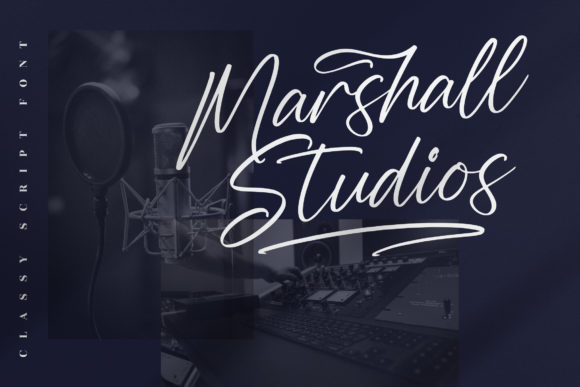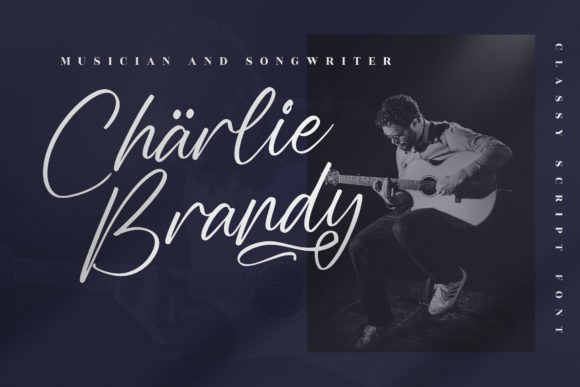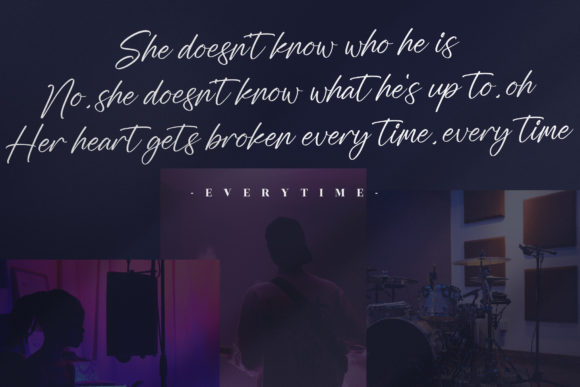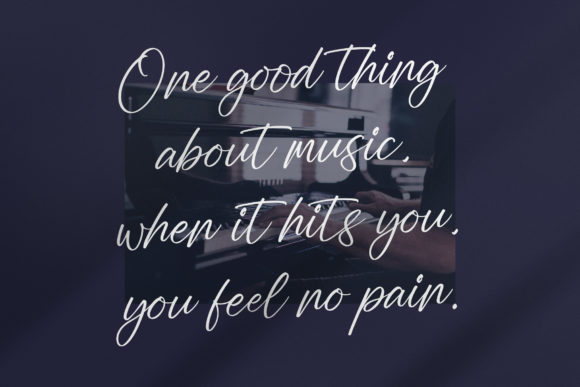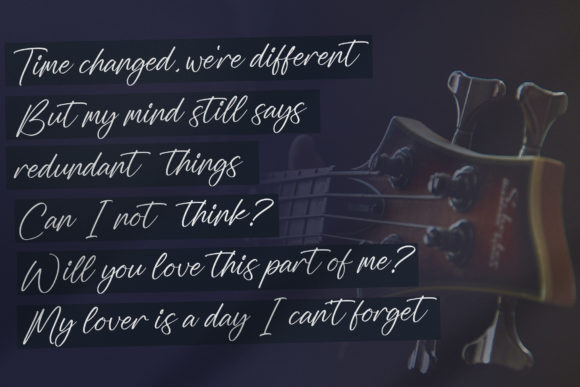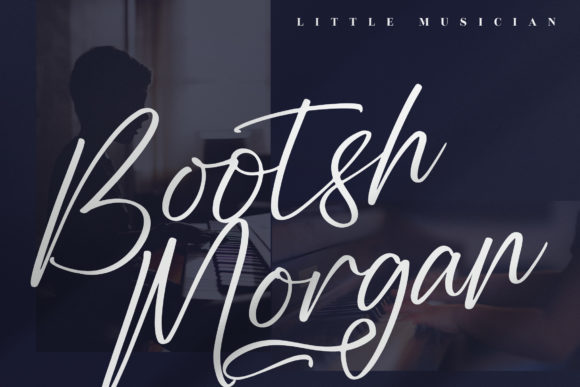
Introduction to Musika Study Font
Remember the moment when you stumbled upon the perfect font for your creative project? It’s like finding a hidden treasure that elevates your design to the next level. For designers, discovering the right font can be a game-changer, and that’s exactly what we’re about to explore – the beautiful world of Musika Study Font.
This lovely script font is more than just a pretty face; it’s a versatile design resource that can be used in a wide range of projects, from logos and branding to homeware designs and product packaging. With its relaxed and elegant feel, Musika Study Font is sure to add a touch of sophistication to any design. Plus, its PUA encoded feature makes it easy to access all the glyphs and swashes, giving you complete control over your creative vision.
Key Features of Musika Study Font
- High-quality, hand-drawn design perfect for creative projects and educational materials.
- Unique, playful style that adds a touch of personality to any design, from educational materials to marketing campaigns.
- Designed to be easily scalable, ensuring that your design remains legible and visually appealing at any size.
Honest Review: Musika Study Font
I recently had the chance to try out the Musika Study Font and I must say, I was quite impressed with its overall performance. As a designer, I’m always on the lookout for high quality design resources to elevate my creative projects, and this font did not disappoint.
One of the things that stood out to me was the clean and modern aesthetic of the font. It’s perfect for creating a professional and sophisticated look, especially when paired with a transparent background. The font is also incredibly versatile, making it suitable for a wide range of design applications.
- High quality design with a clean and modern aesthetic
- Perfect for creating a professional and sophisticated look
- Very versatile and suitable for a wide range of design applications
- The font may not be suitable for projects that require a more playful or casual tone
- The font can be quite heavy on the design, so it’s best to use it in moderation
Overall, I was very pleased with the Musika Study Font and would definitely recommend it to fellow designers looking for a high quality design resource. It’s a great addition to any design library and can help take your creative projects to the next level.
Introduction to Musika Study Font
Musika Study Font is a free design resource ideal for creative projects that require a high-quality, professional-looking font. With its transparent background, this font can be easily customized to fit your design needs.
Tips for Getting the Most Out of Musika Study Font
To get the most out of Musika Study Font, experiment with different font sizes, colors, and styles to create a unique and engaging design. Use the font in combination with other design elements to add depth and visual interest to your project.
Musika Study Font is ideal for a variety of creative projects, including academic presentations, business reports, and marketing materials. Its high-quality design and transparent background make it a versatile design resource that can be used in a range of contexts.